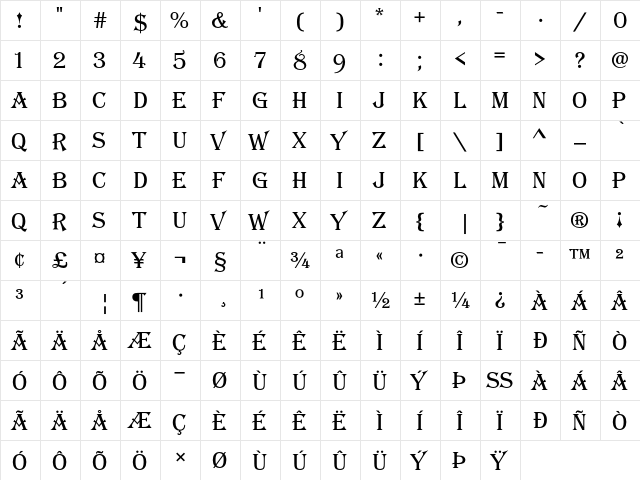
Algerian Basic D Regular
Design Context for Algerian Basic D Typeface
Algerian Basic D is a composed and adaptable typeface that performs quietly and consistently across a wide range of design contexts.
Pro Tip: Use Algerian Basic D in both headline and body roles to test its range before committing to a single application.